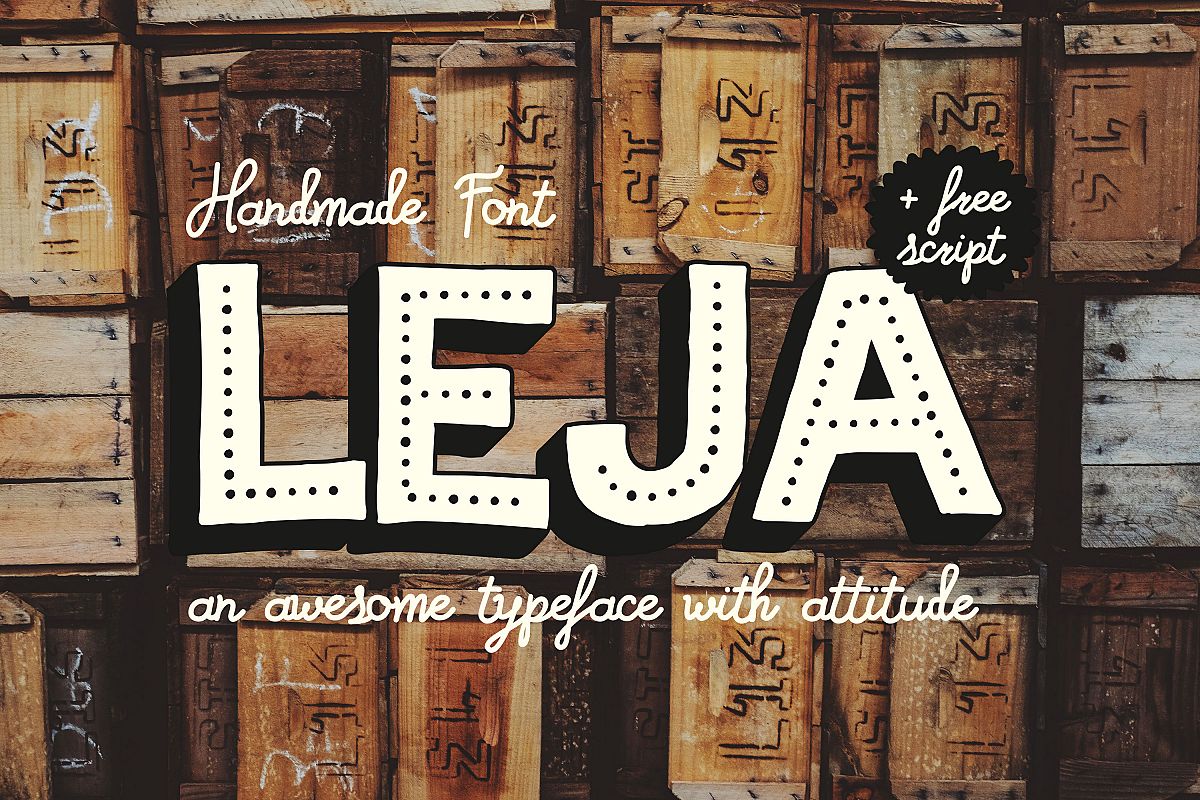
LeJa Family
Leja is a hand-drawn/handmade all-caps display-family for packaging, posters, book-covers, food design, typography quotes, magazine and logo-design. Its handcrafted character is friendly, eye-catching and feels a bit Rock ’n Roll.
The entire font breathes vintage. All the cool kids use it! Be one of the cool kids!
The font family contains:
- regular (front)
- inline
- dotted inline
- 3D shadow
- 3D shadow with outline
- 111 design Elements
- a bonus script